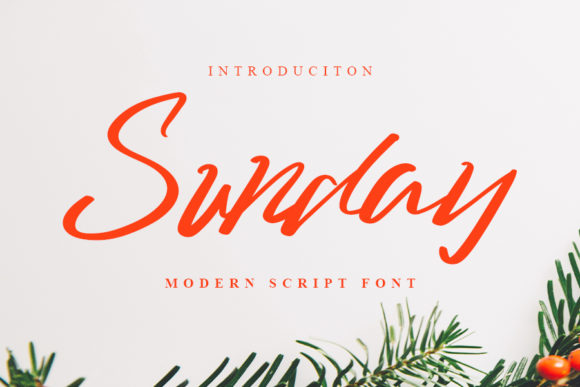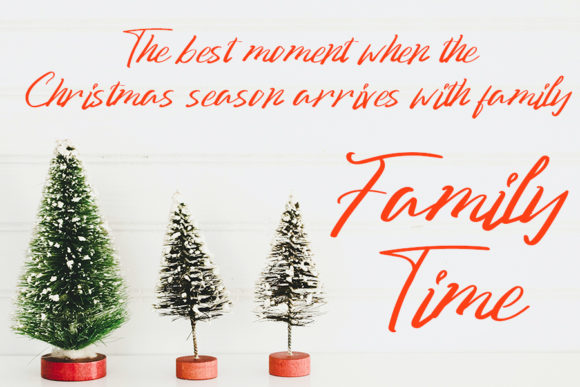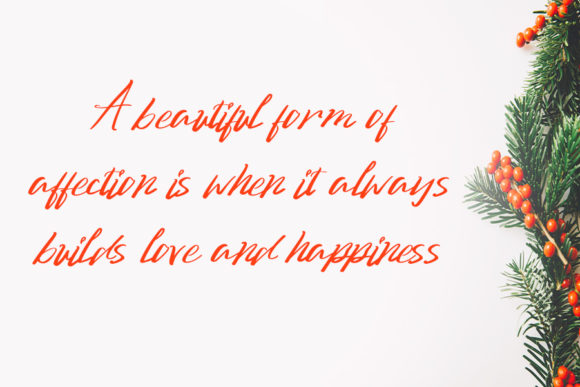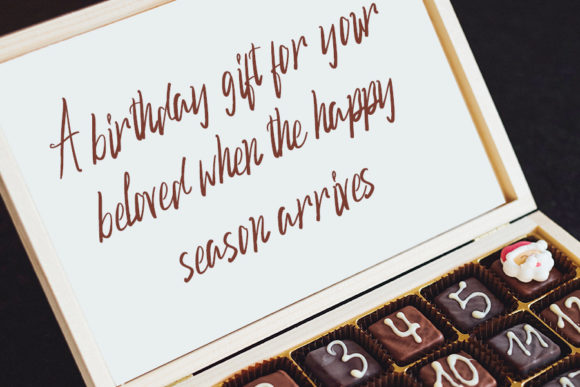
About Sunday Font
Sunday is a relaxed and cursive handwritten font. This gentle font will look gorgeous on a variety of design ideas. It will add a joyful and romantic touch to each of your projects!